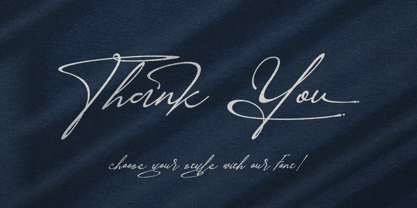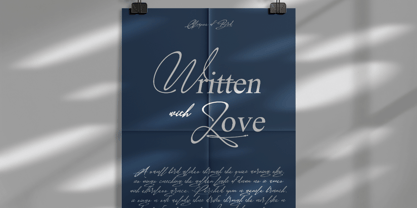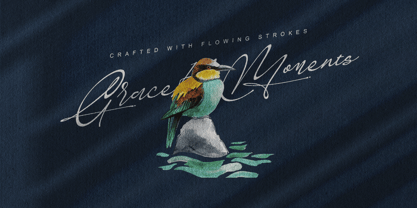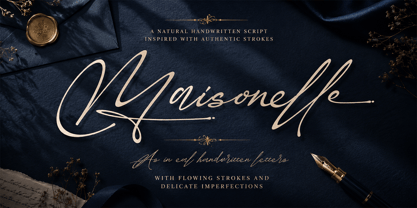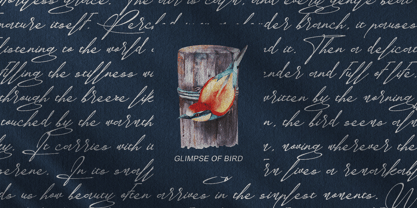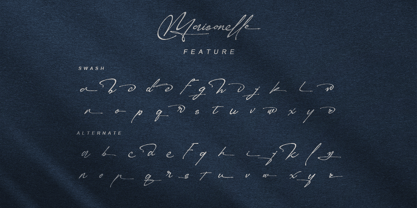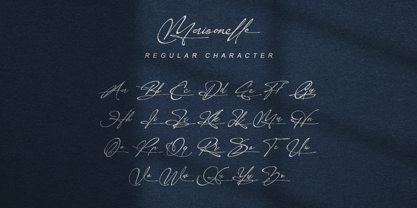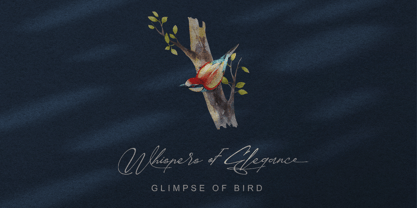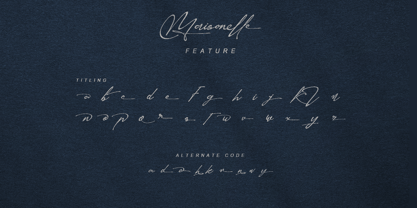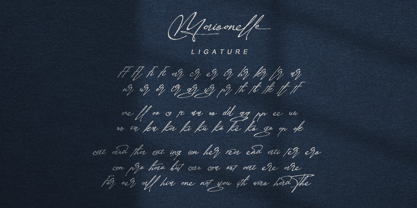
Maisonelle
by Letterara
The Maisonelle Font Family was designed by Thomas Aradea and published by Letterara. Maisonelle contains 2 styles and family package options. More about this family
Maisonelle is a graceful handwritten script font designed to capture the beauty of authentic signature writing with flowing strokes, delicate curves, and natural imperfections. Its elegant character brings a personal and sophisticated touch, making it perfect for luxury branding, wedding invitations, editorial layouts, beauty packaging, photography watermarks, social media quotes, stationery, and premium logo designs. With its smooth rhythm and refined handwritten feel, Maisonelle creates a timeless aesthetic that feels both intimate and effortlessly elegant.